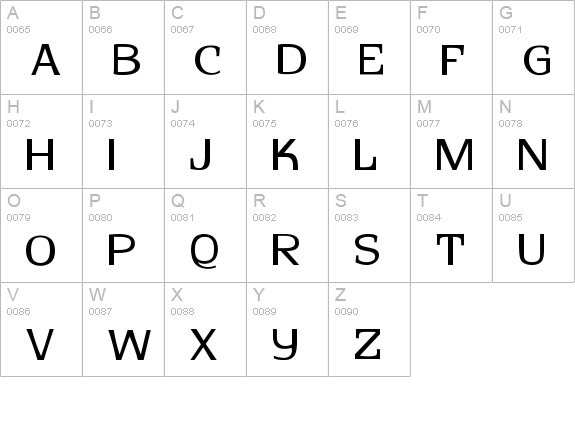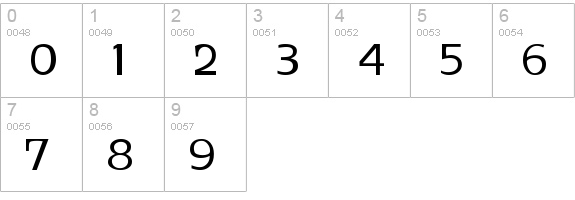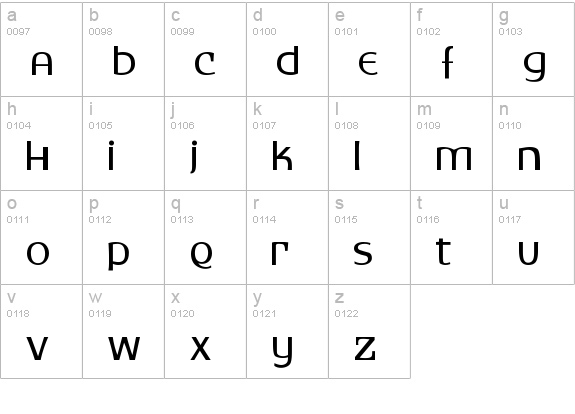
Andorra Regular is the standard, neutral variant in the Andorra typeface family \xE2\x80\x94 well suited to general body text, paragraphs, and standard typographic work.
Andorra Regular is a versatile and elegant font that exudes sophistication and modernity. With its clean lines and sleek appearance, this font is perfect for a wide range of design projects, from branding to editorial design. The Andorra Regular font offers a classic yet contemporary look that can elevate any design it is incorporated into. The best part? Andorra Regular is available for free download at FontsMarket.com. This means you can access this high-quality font without any cost, making it a valuable addition to your font collection. Don't miss out on the opportunity to enhance your designs with the timeless appeal of Andorra Regular. Download it today and see how it can transform your creative projects.